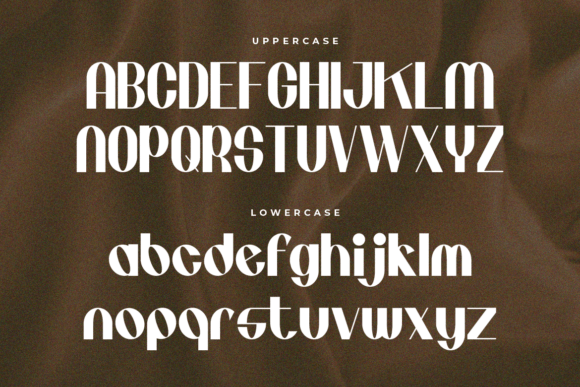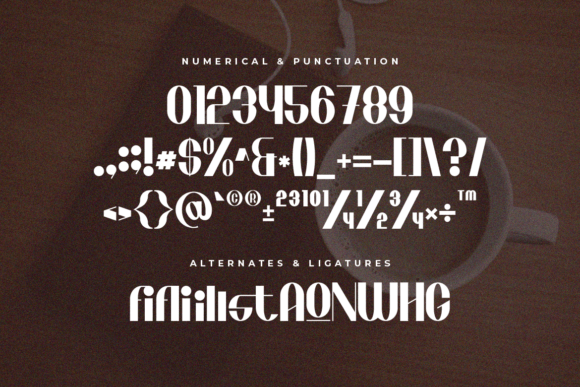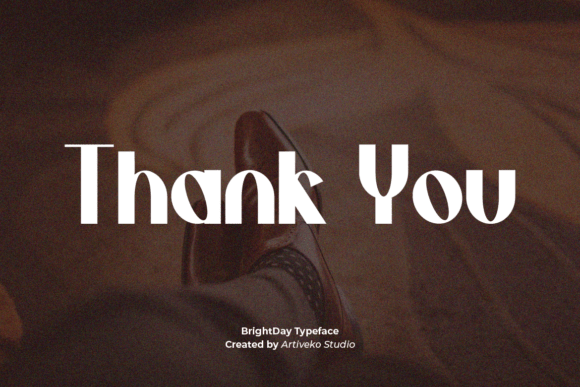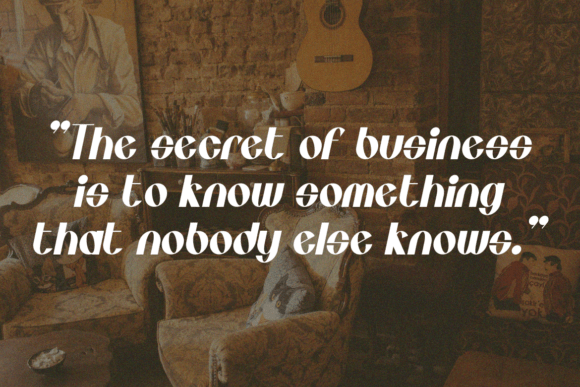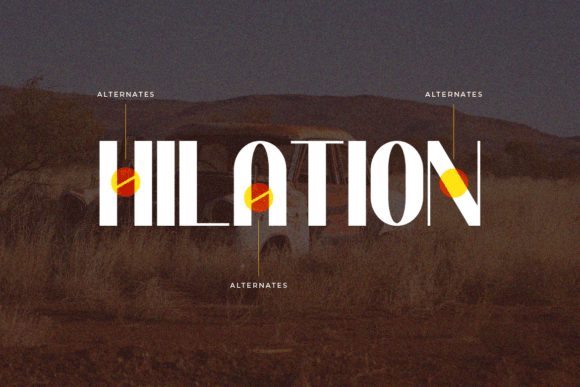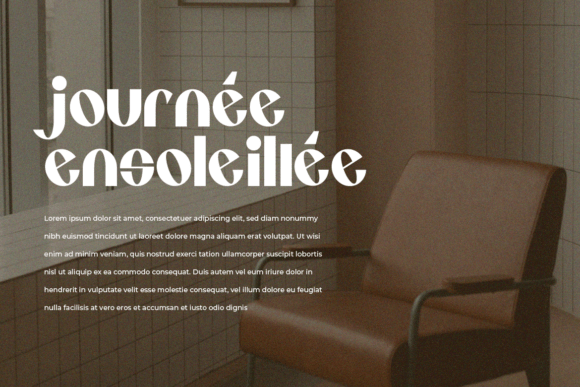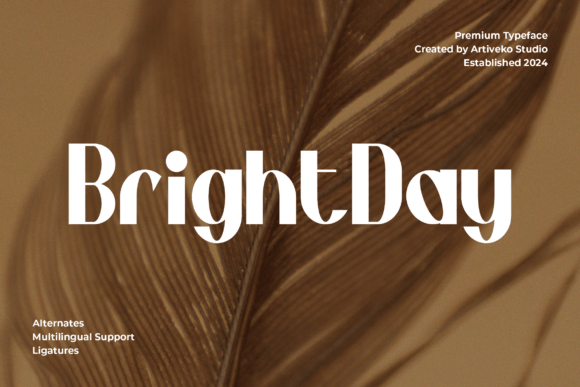
Introducing BrightDay Font: Elevate Your Designs with Simplicity and Sophistication
In the world of typography, a font can make or break the visual identity of a brand, product, or creative project. For designers and crafters seeking a refined and modern aesthetic, BrightDay Font is an exceptional choice. This sleek and stylish sans serif font embodies simplicity and sophistication, making it perfect for a wide range of applications, from branding and editorial layouts to packaging, web design, and social media graphics.
The Characteristics of BrightDay Font
BrightDay Font boasts clean lines, balanced proportions, and a contemporary look that instantly elevates any design. Its sans serif design ensures a crisp and clear appearance, making it highly legible across various mediums and sizes. The font’s simplicity is its greatest strength, allowing it to adapt seamlessly to different contexts while maintaining a sophisticated feel.
Key Features of BrightDay Font
• Clean Lines: The font’s clean and uncluttered lines contribute to its modern and fresh appearance, making it ideal for designs that require a sleek look.
• Balanced Proportions: The carefully balanced proportions of BrightDay ensure that each character is harmonious with the others, creating a visually pleasing text that is easy on the eyes.
• Modern Aesthetic: With its contemporary design, BrightDay brings a touch of modernity to any project, making it perfect for brands and designs that want to appear current and trendy.
• High Legibility: The sans serif nature of BrightDay, combined with its well-thought-out design, ensures high legibility across different devices and screen sizes, making it an excellent choice for digital applications.
Applications of BrightDay Font
BrightDay Font’s versatility makes it suitable for a myriad of design projects. Here are some of the areas where BrightDay truly shines:
• Branding: For businesses looking to establish a strong and modern brand identity, BrightDay offers a professional and sleek look that can be used in logos, business cards, and letterheads.
• Editorial Layouts: In magazines, newspapers, and digital publications, BrightDay’s readability and aesthetic appeal make it an excellent choice for article texts and headings.
• Packaging: For product packaging that stands out on shelves, BrightDay can be used to create eye-catching labels and packaging materials that convey a sense of modernity and sophistication.
• Web Design: BrightDay is optimized for digital use, making it perfect for website content, blog posts, and landing pages where a clean and professional look is desired.
• Social Media Graphics: Create engaging social media content with BrightDay. Its stylish appearance makes it ideal for infographics, promotional posts, and more.
Why Choose BrightDay Font?
In a sea of fonts, BrightDay stands out for its unique blend of simplicity, elegance, and modernity. Designers and crafters choose BrightDay for its ability to enhance the visual appeal of their projects while ensuring clarity and readability. Whether you’re working on a brand identity, editorial content, digital design, or marketing materials, BrightDay Font offers the perfect combination of style and functionality.
BrightDay Font is more than just a typeface; it’s a design statement that speaks of simplicity, sophistication, and modernity. Its clean lines, balanced proportions, and versatile nature make it an invaluable asset for designers and crafters looking to elevate their projects. With BrightDay, you can ensure that your designs not only look refined and stylish but also communicate effectively with your audience. Embrace BrightDay Font in your next project and experience the power of typography in enhancing your visual creations.